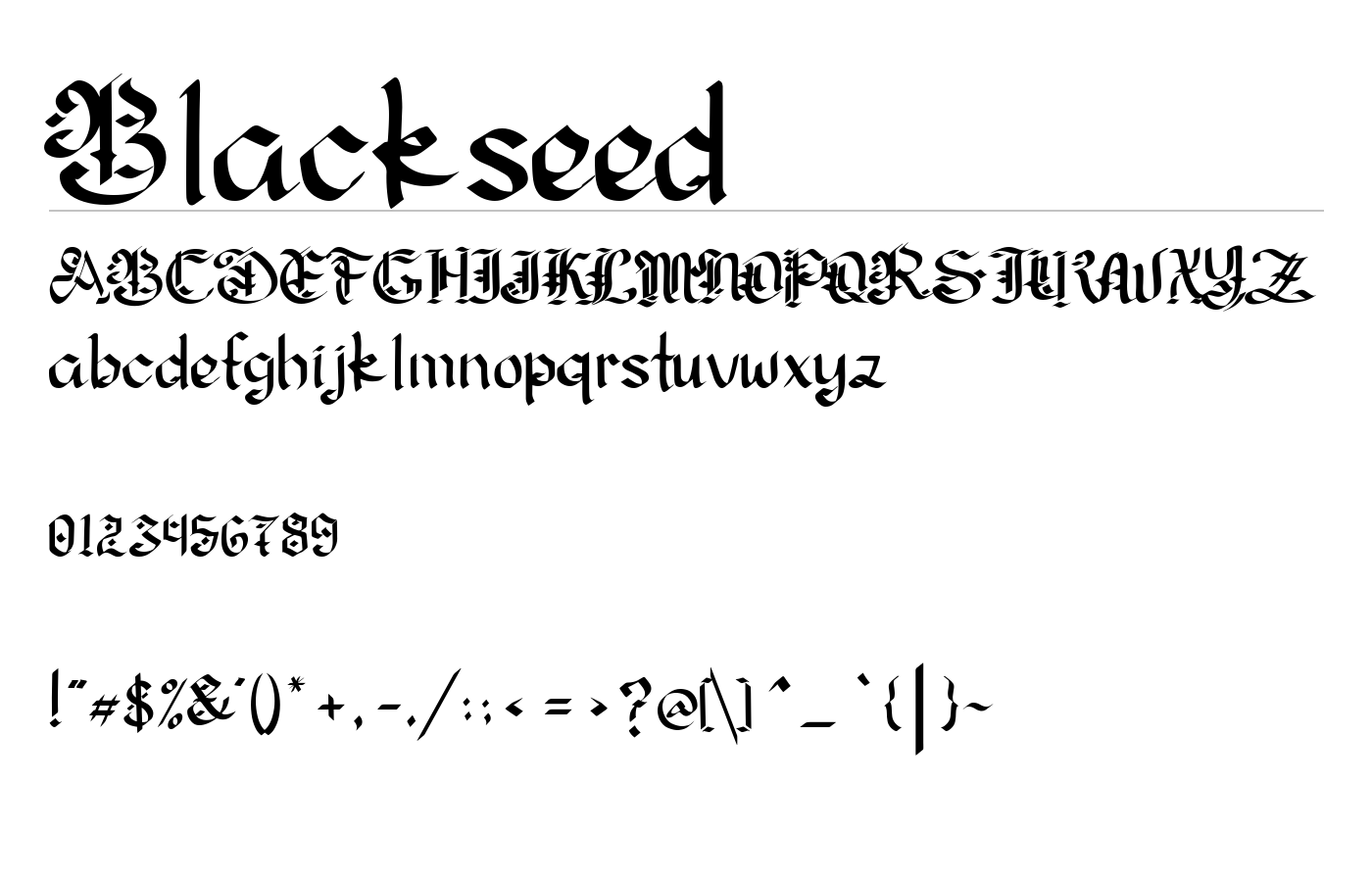
Blackseed is a bold blackletter-style font characterized by its dramatic, dense strokes and ornate, sharp serifs that evoke a traditional Gothic calligraphy feel. With its high contrast between thick and thin strokes and intricate letterforms, it delivers a strong, vintage personality ideal for branding, headlines, or projects seeking a historic and sophisticated mood. This font works well in logos, posters, and editorial designs where a striking, old-world atmosphere is desired.
Blackseed Font
About Blackseed Font
| Font family | Blackseed Font |
| Designer | Gitayogi |